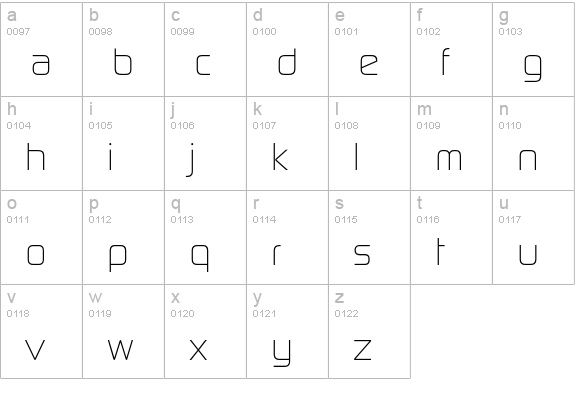
DigitalEF-Light is a refined, elegant variant in the DigitalEF typeface family \xE2\x80\x94 well suited to elegant body text, refined sub-headings, and luxury branding.
The DigitalEF-Light font is a sleek and modern typeface that exudes elegance and sophistication. With its clean lines and contemporary design, this font is perfect for a wide range of projects, from branding to web design. The light weight of the font adds a delicate touch to any text, making it ideal for titles, headers, and other prominent elements. The best part? DigitalEF-Light is completely free to download at FontsMarket.com. This means you can easily add this stylish font to your collection without breaking the bank. Whether you're a professional designer looking for a new addition to your toolkit or a casual user in need of a fresh font for your next project, DigitalEF-Light is sure to impress with its versatility and modern aesthetic. Download it today and elevate your designs with this stunning typeface.